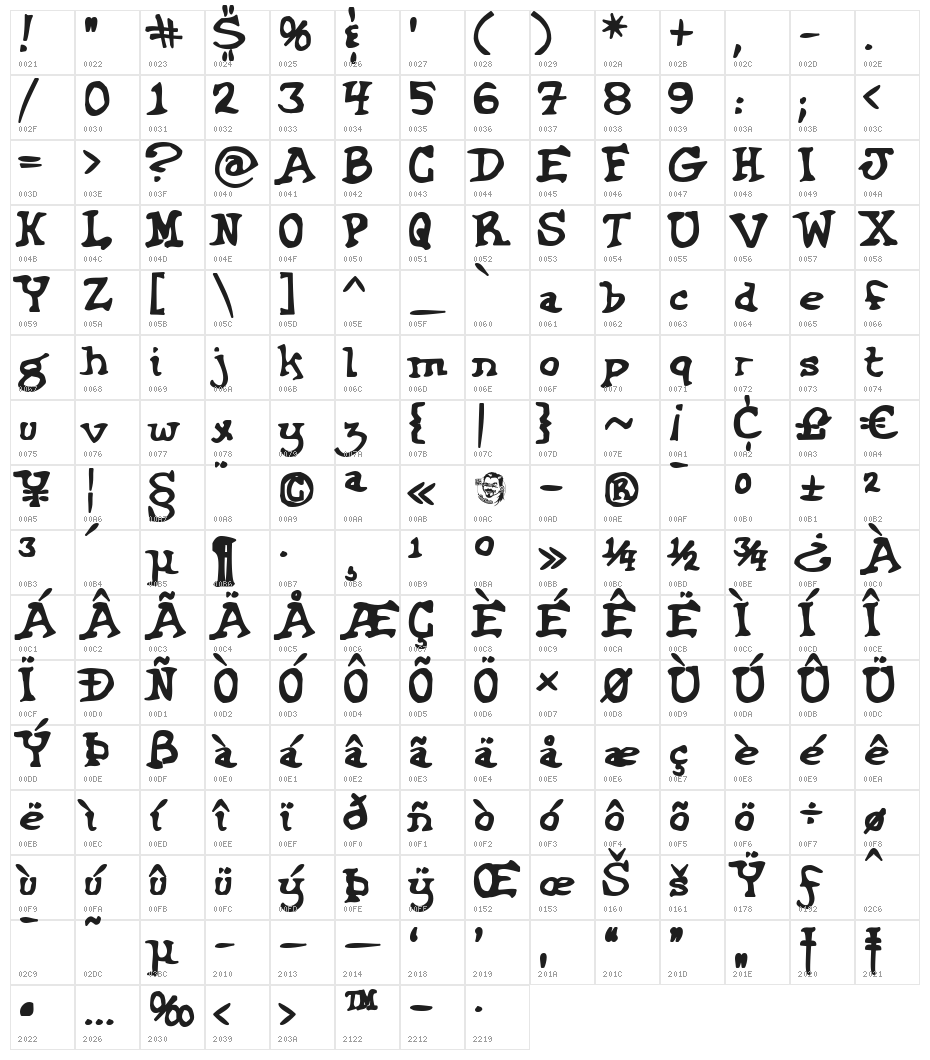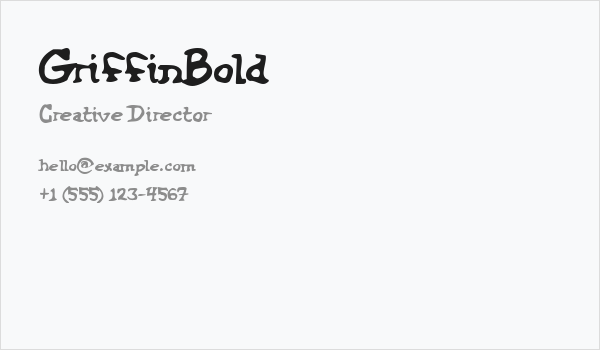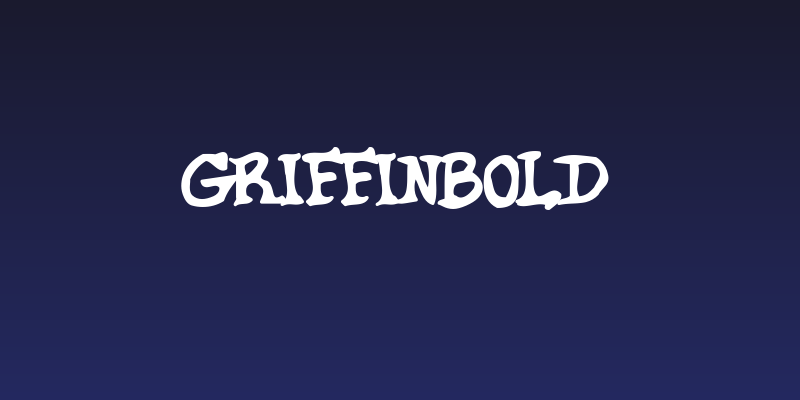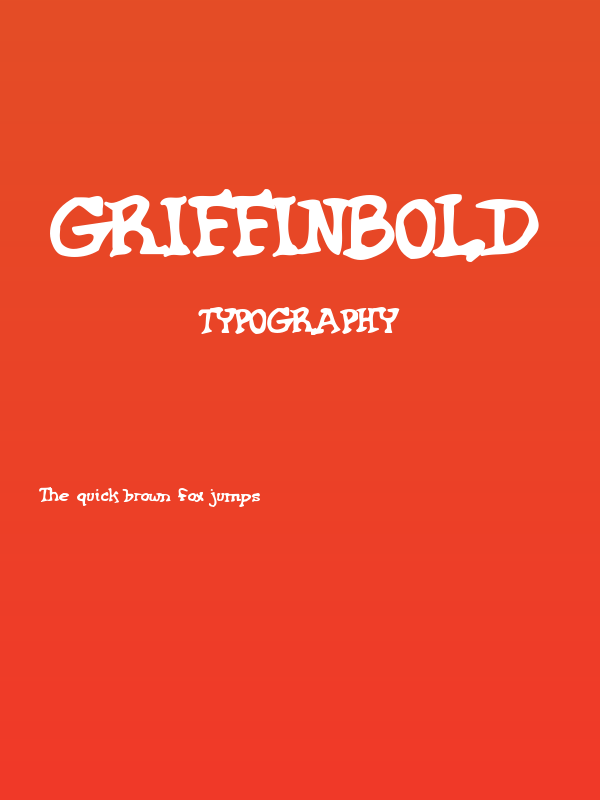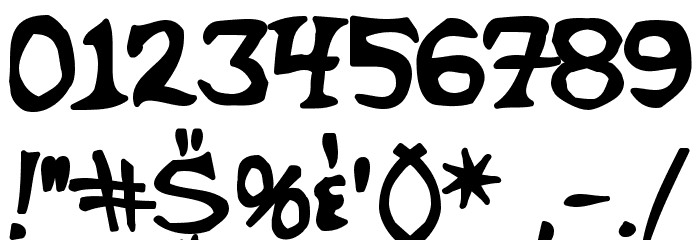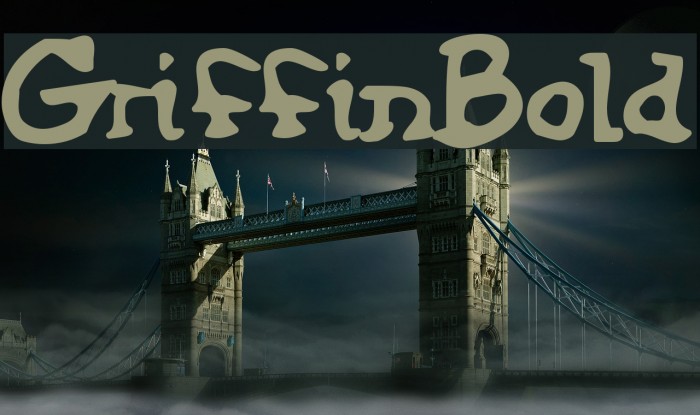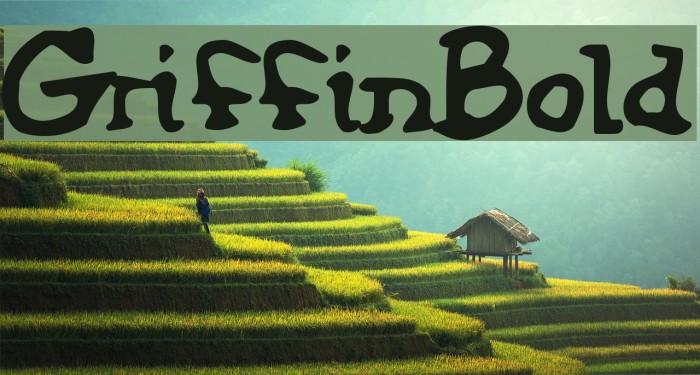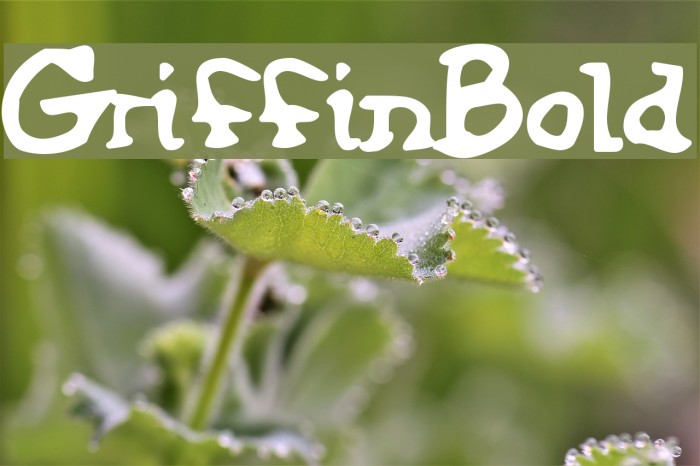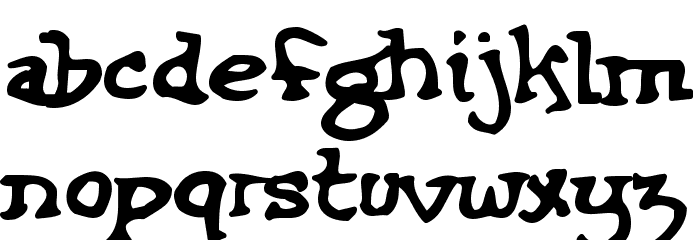
GriffinBold Font
GriffinBold Description
This font exhibits a bold and dynamic style with a playful, hand-drawn appearance. The characters are thick and have a slightly irregular shape, giving them a whimsical and artistic feel. The uppercase letters are robust and commanding, while the lowercase letters maintain a consistent flow with a touch of quirkiness. The numbers are equally bold, ensuring they stand out prominently. Special characters are creatively designed, adding to the font's unique personality. This font's overall aesthetic is both eye-catching and approachable, making it suitable for a variety of creative applications.
| Overall Style | Playful and Artistic |
| Proposed Projects | Ideal for children's books, playful branding, posters, and creative projects that require a bold and artistic touch. |